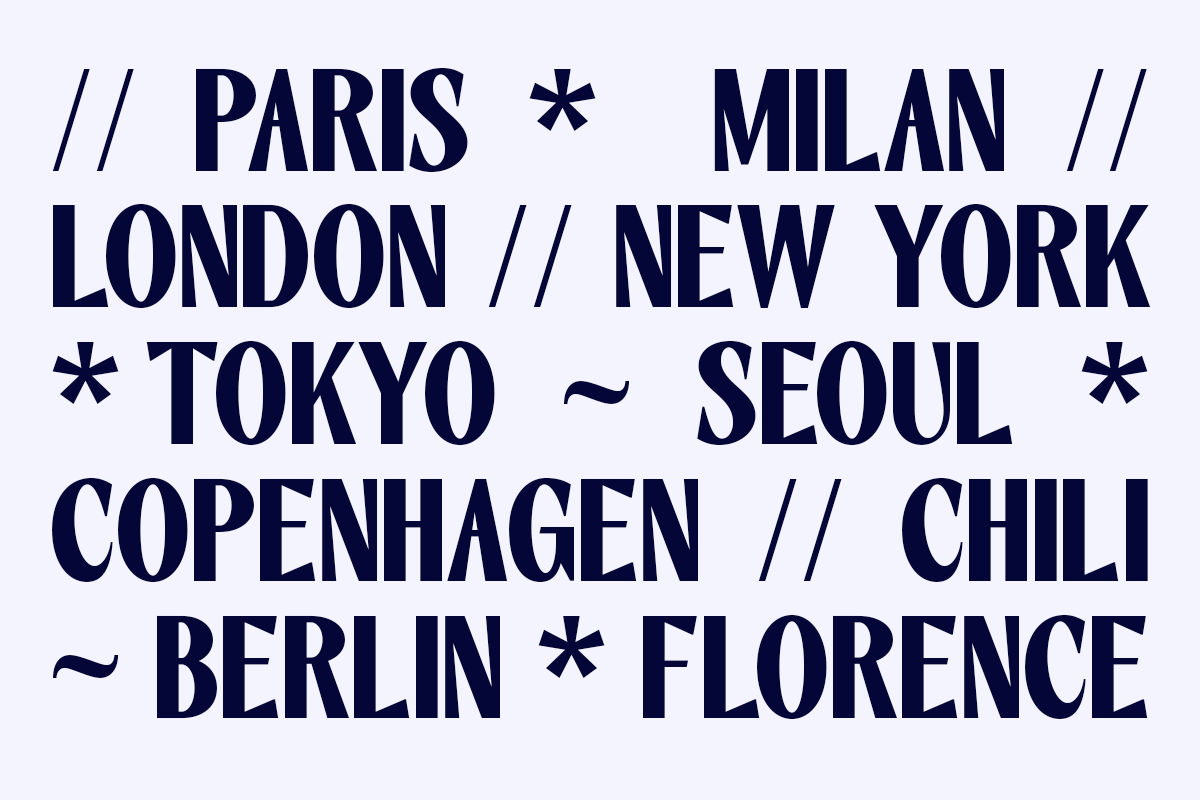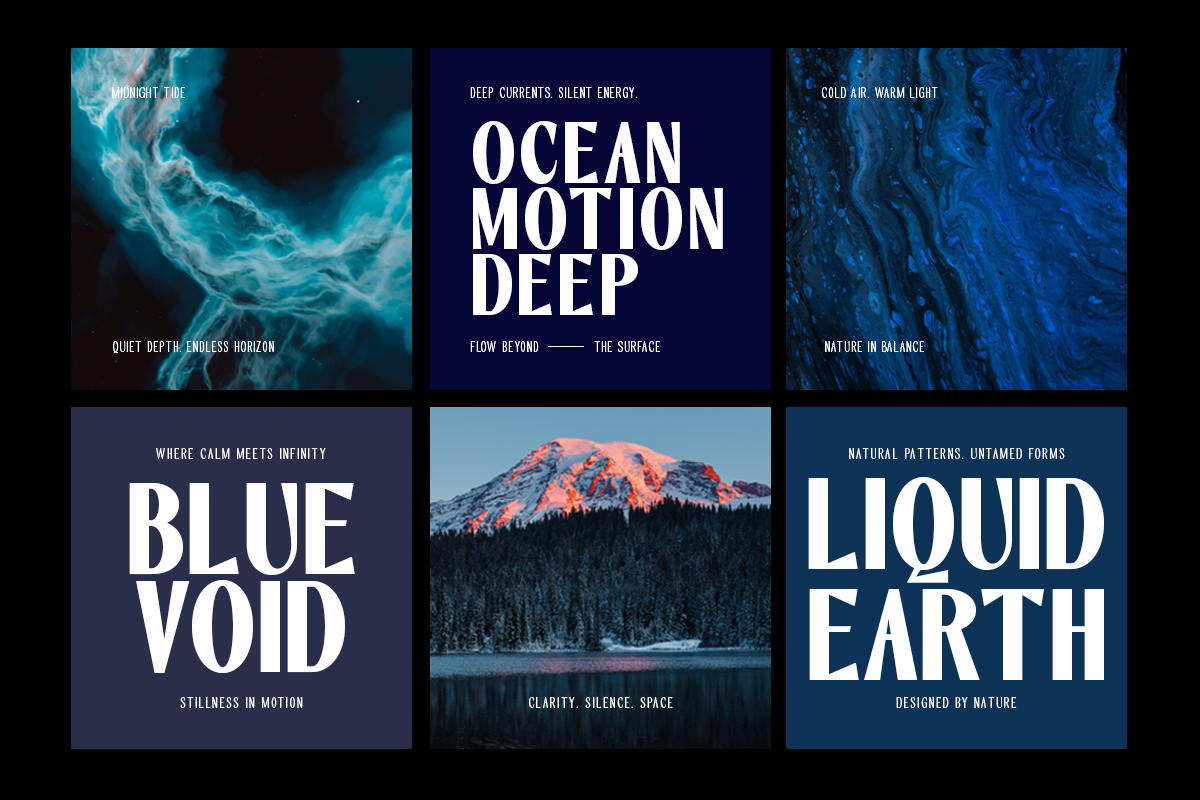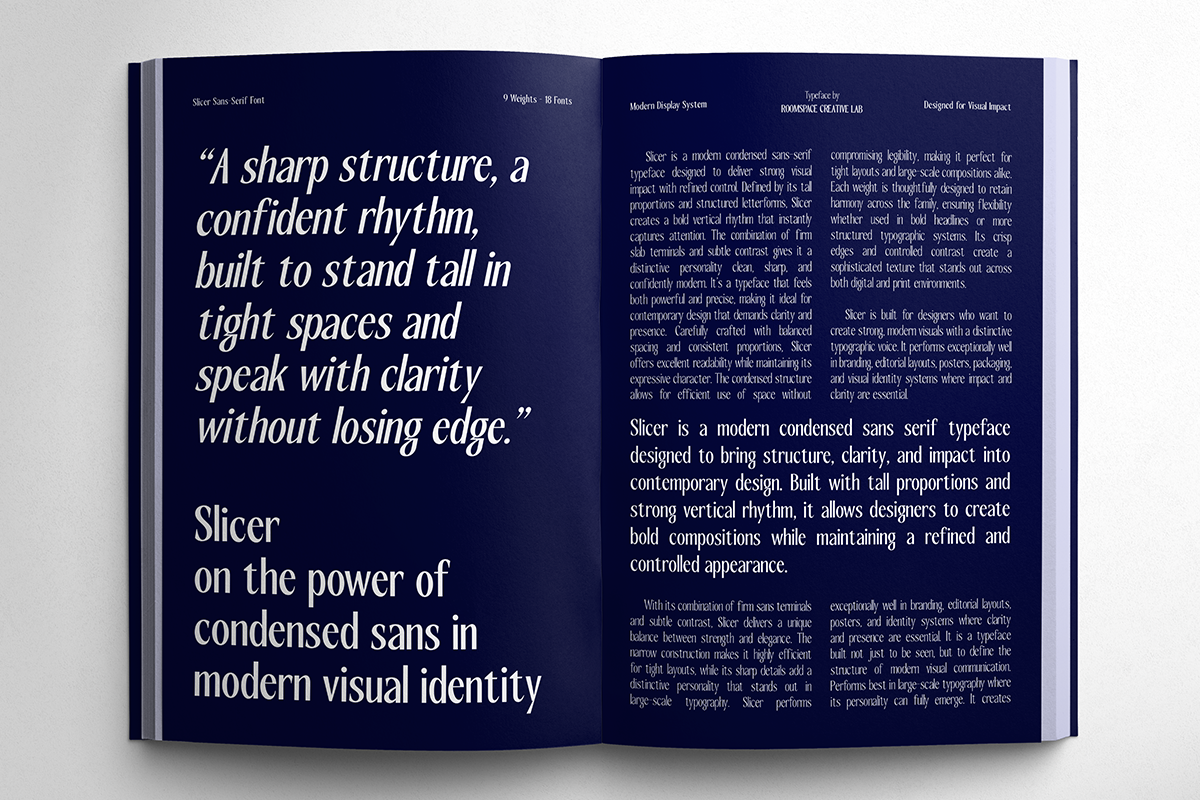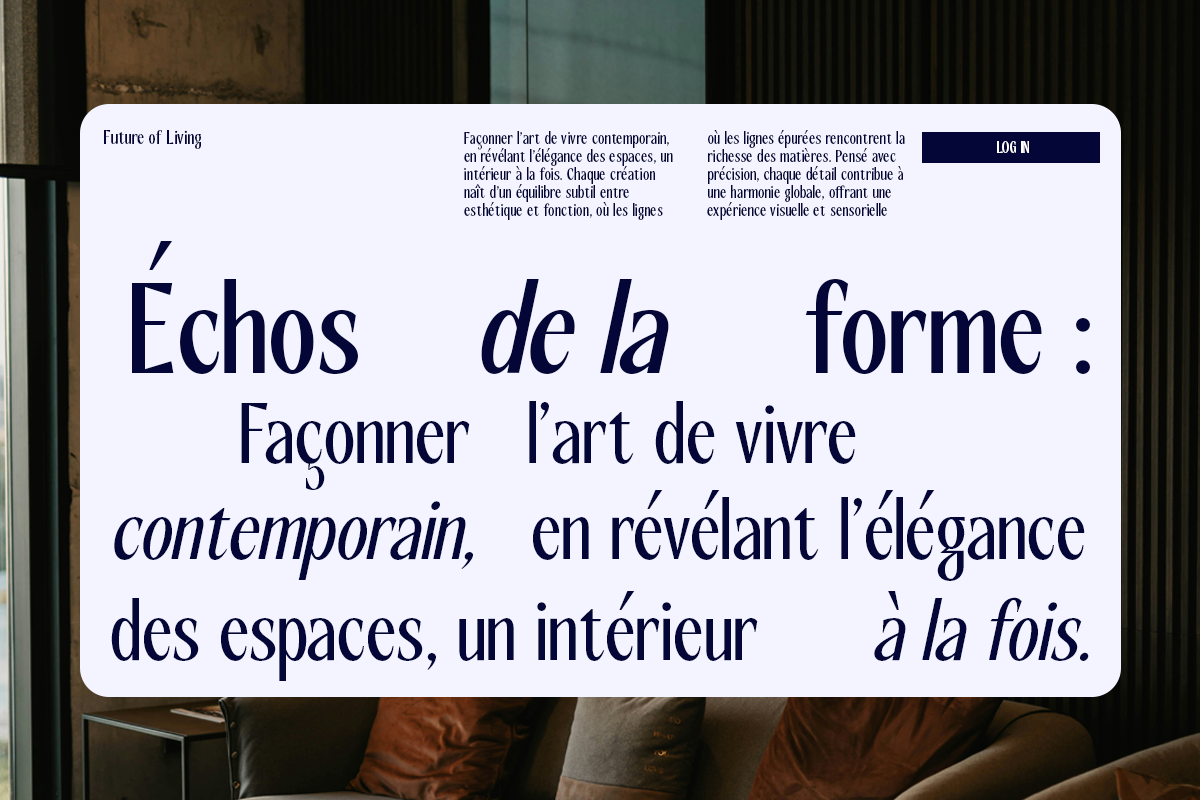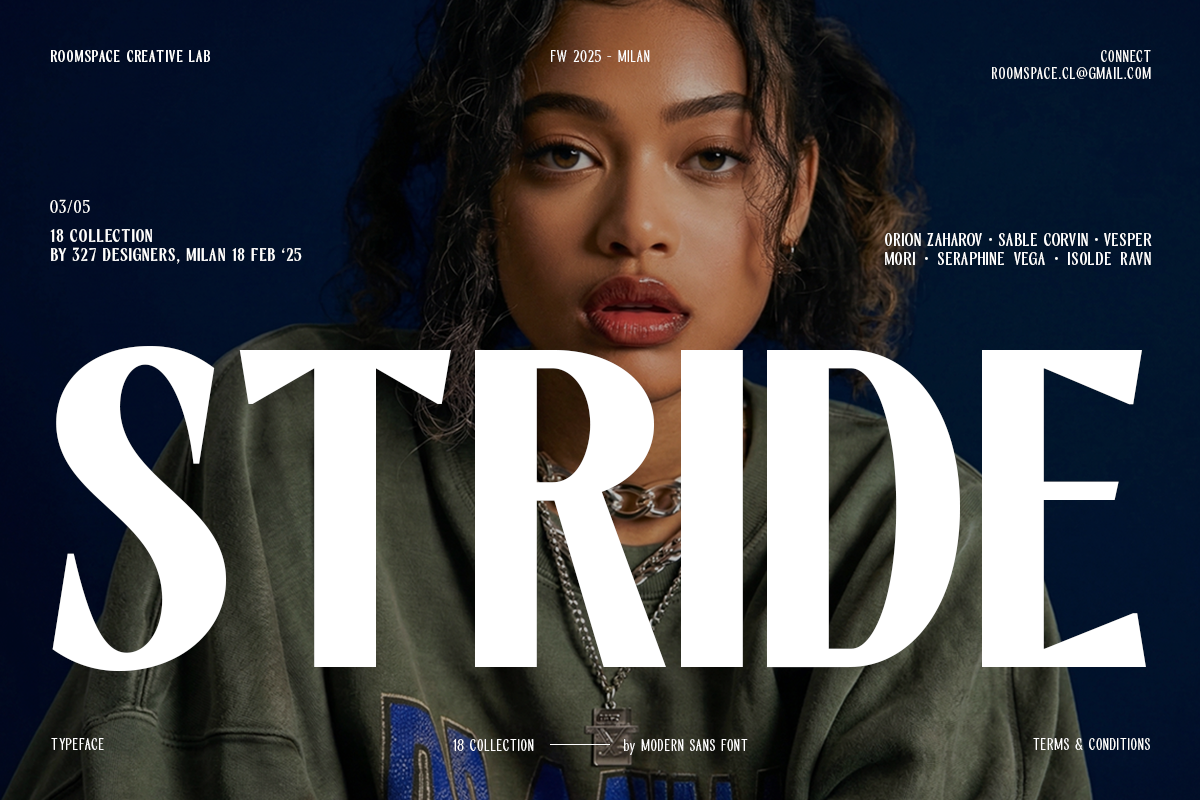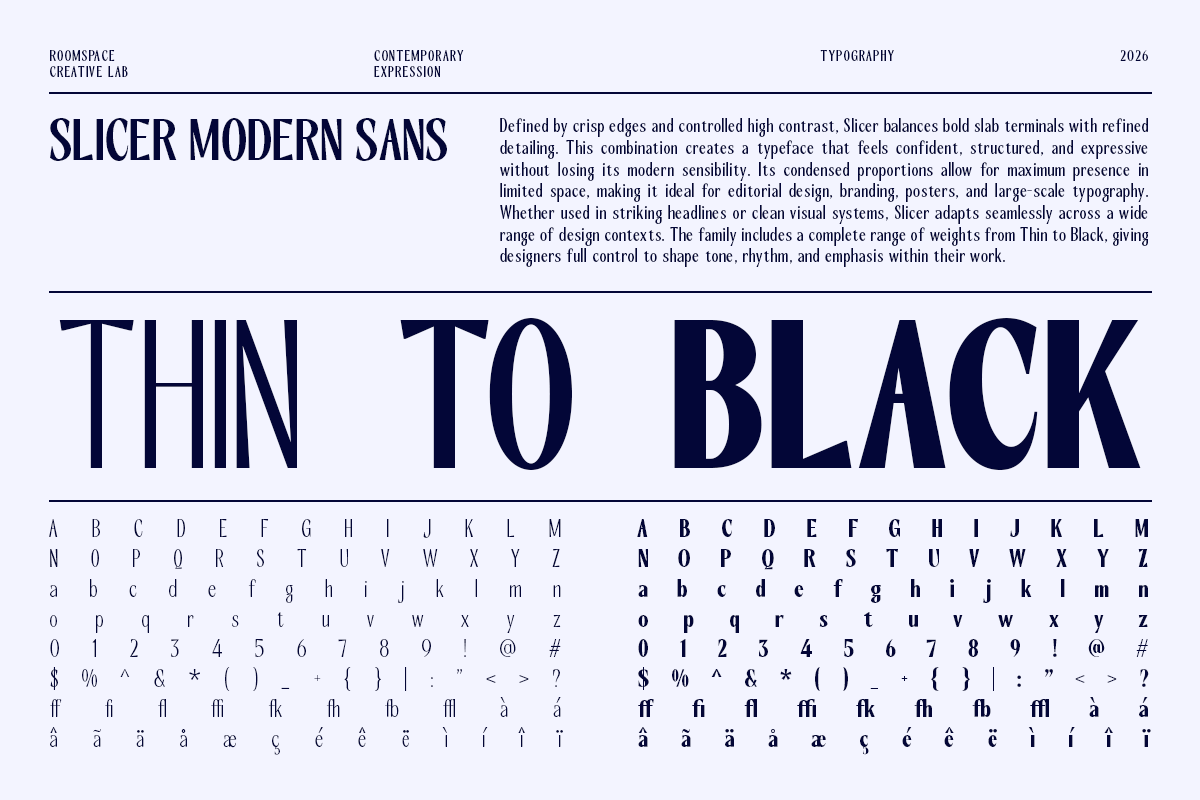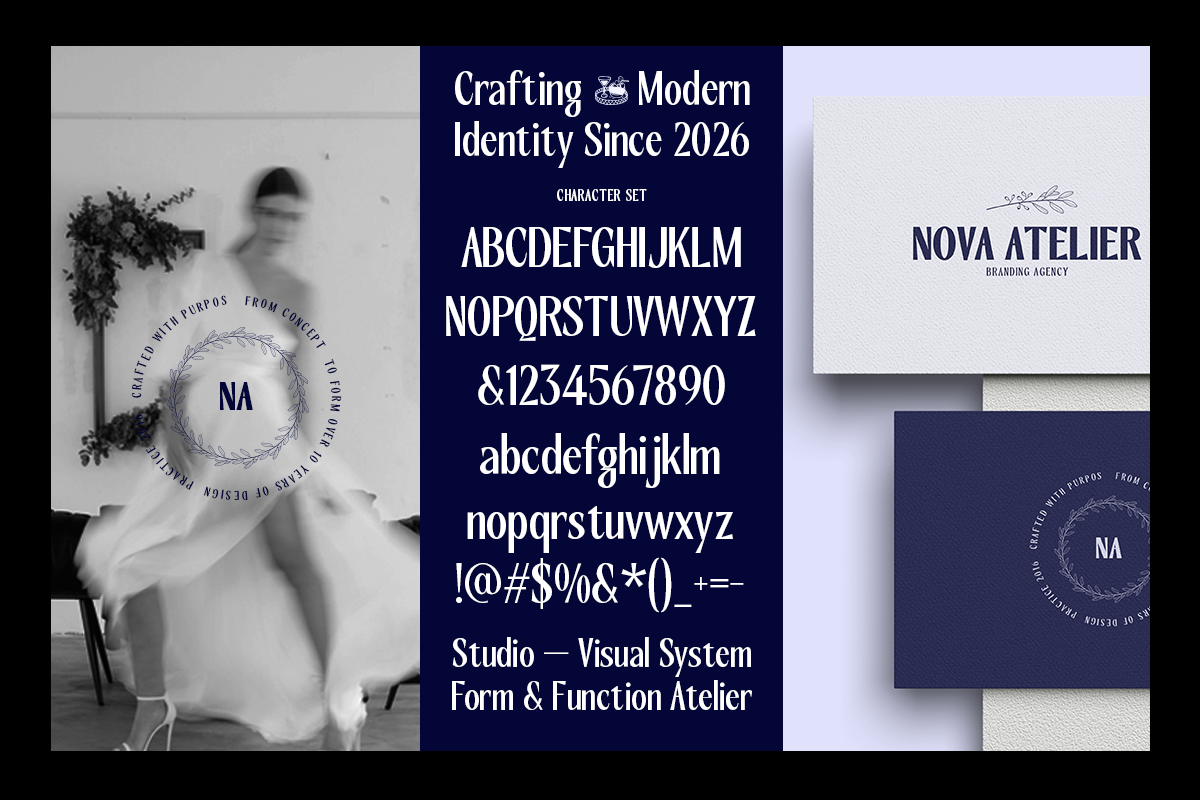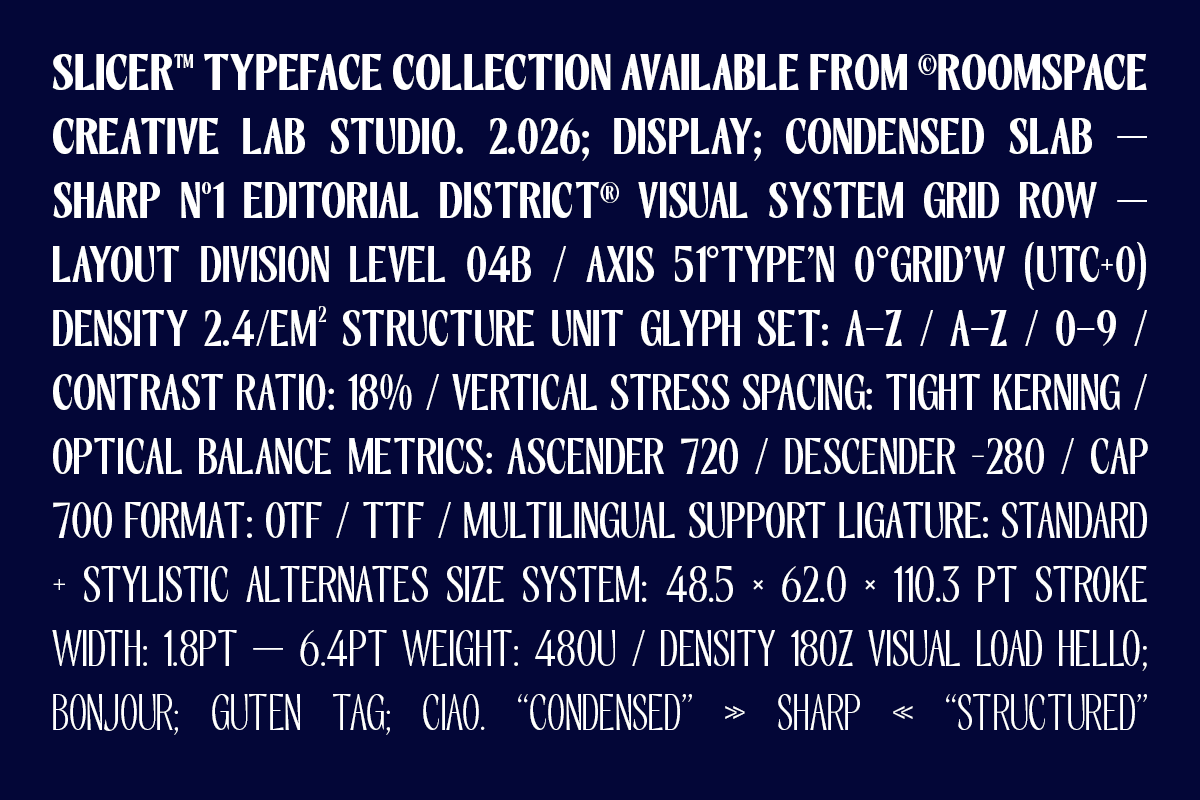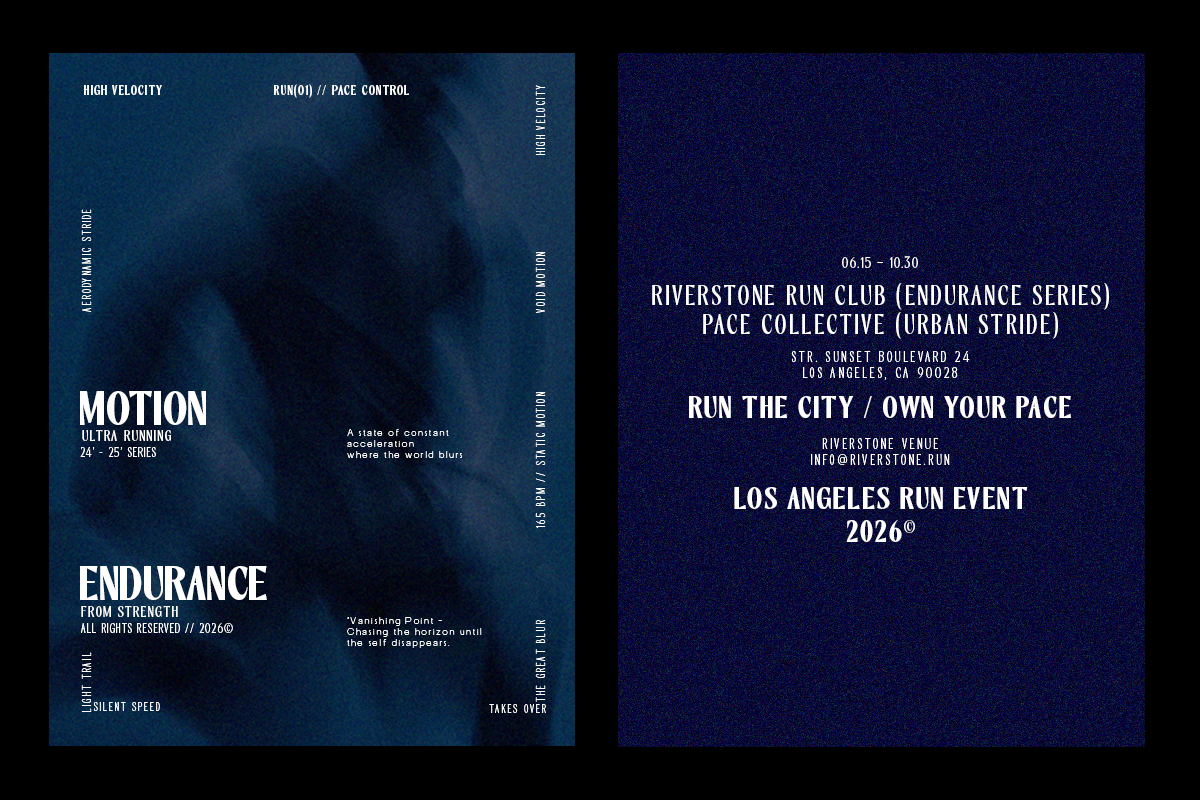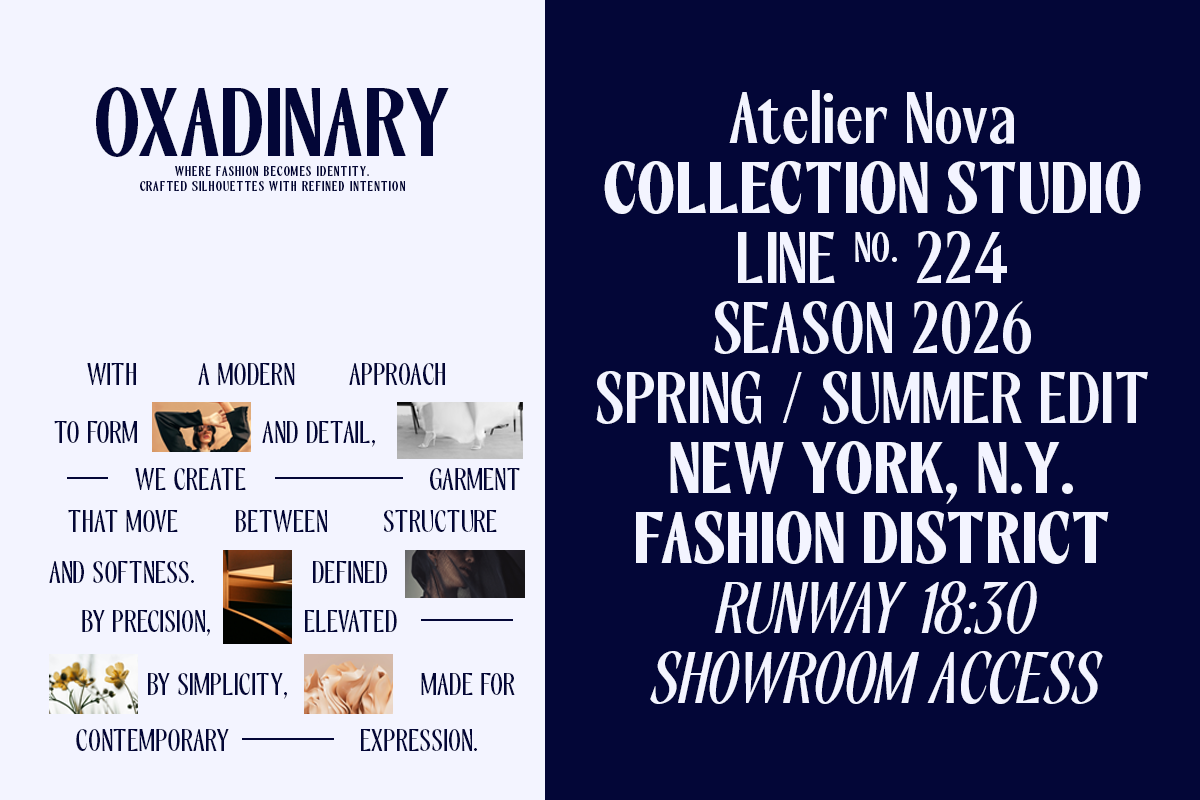
Slicer – Modern Condensed Sans Serif
Slicer is a condensed sans-serif font family designed for modern designers who need precision and presence. With its narrow proportions and sharp contrast, Slicer creates strong visual hierarchy while maintaining clean readability. From branding systems to editorial layouts, Slicer adapts effortlessly across contemporary design needs. It’s built to define your message not just display it. Sharp, confident, and structured a condensed sans-serif built for clarity and impact. Slicer emphasizes vertical rhythm, tight spacing, and high contrast, creating a bold and modern visual presence.
- 18 fonts (9 weights × 2 styles)
- Condensed sans-serif structure
- High contrast strokes
- Professional kerning